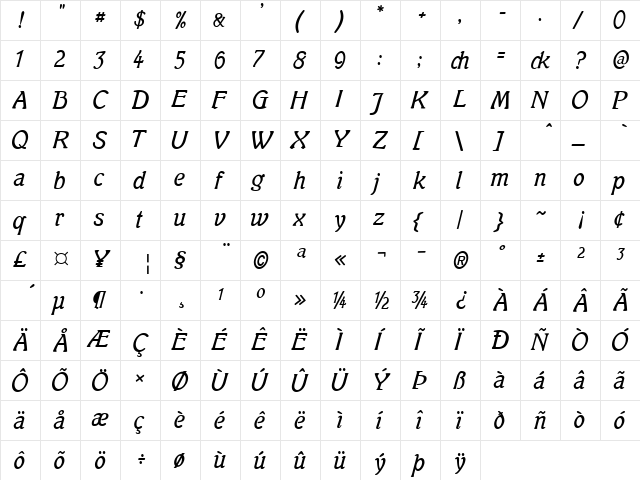
Mutter Krause Regular
Design Context for Mutter Krause Typeface
Mutter Krause is a composed and adaptable typeface that performs quietly and consistently across a wide range of design contexts.